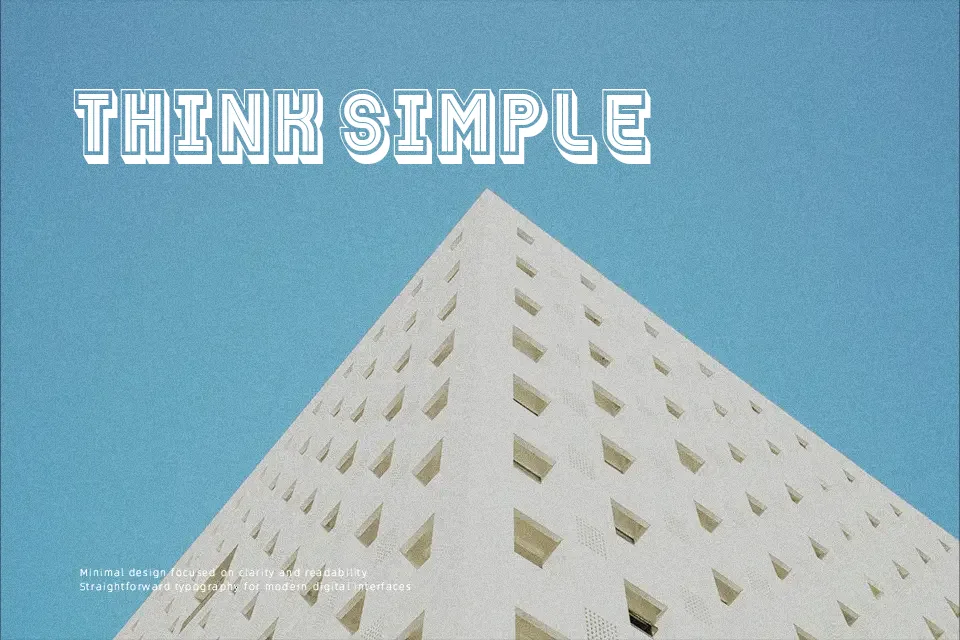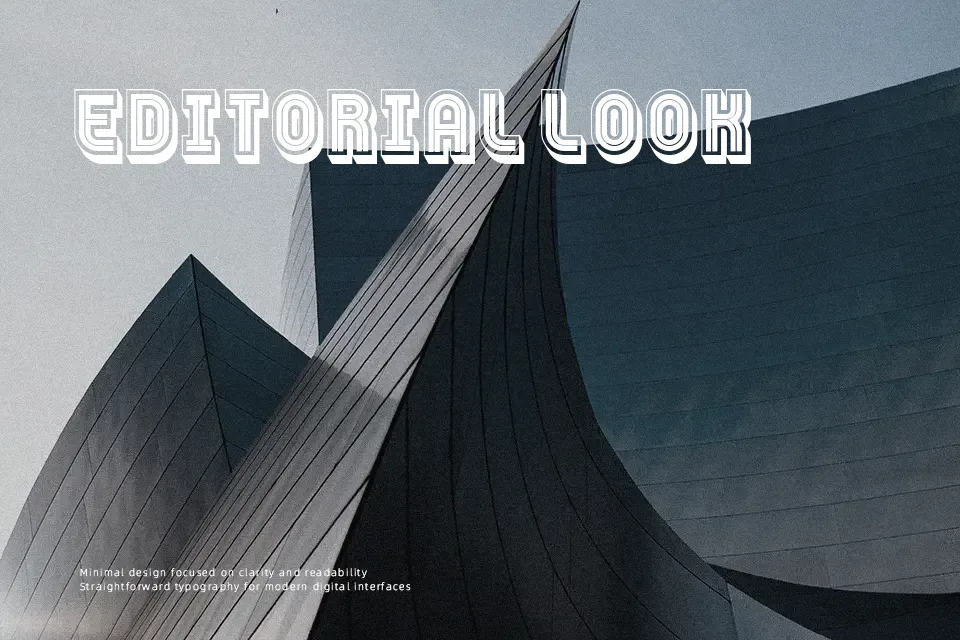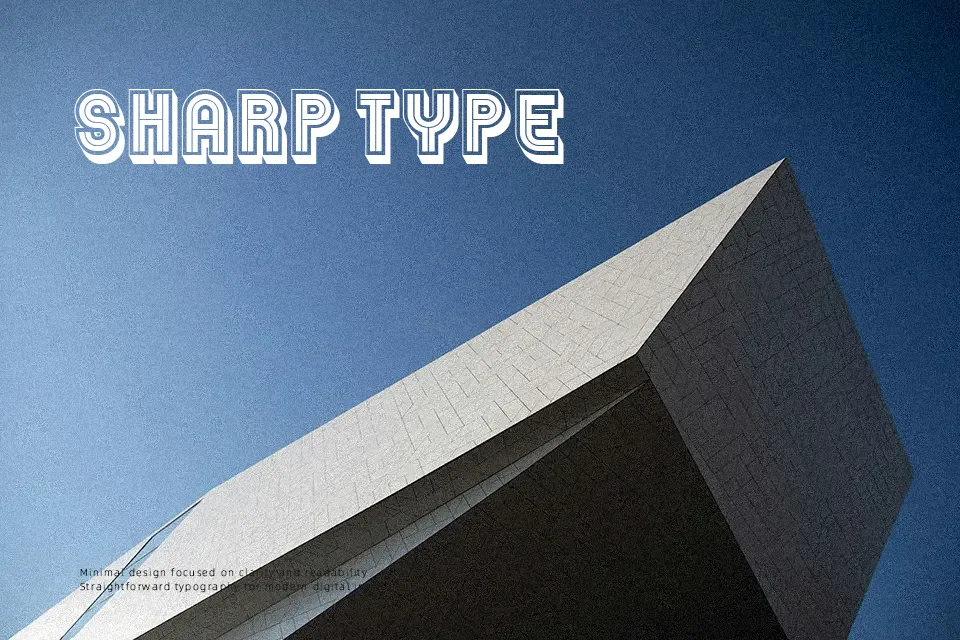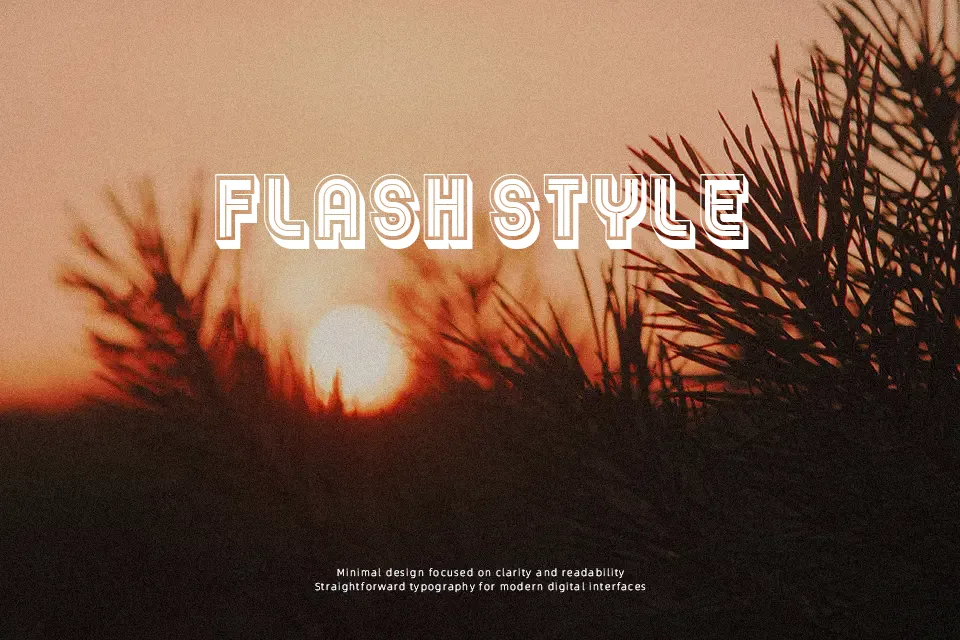
Pacceti Font
Pacceti Font makes a bold visual statement through heavy display letterforms that feature pronounced geometric structure and distinct decorative contours. Consistent stroke thickness and carefully aligned character proportions give the design a solid footprint, while balanced spacing prevents overlapping in prominent titling. The strong silhouette ensures high visibility in large headline treatments, poster artwork, and standalone badge graphics. Dense internal shapes slightly limit legibility in smaller captions and extended text blocks, making it far more effective as a dedicated display choice. Overall, the typeface provides immediate graphic impact whenever projects require sharp visual hierarchy and energetic presentation.
retro merchandise graphics
apparel headline typography
event banner titles
technical documentation